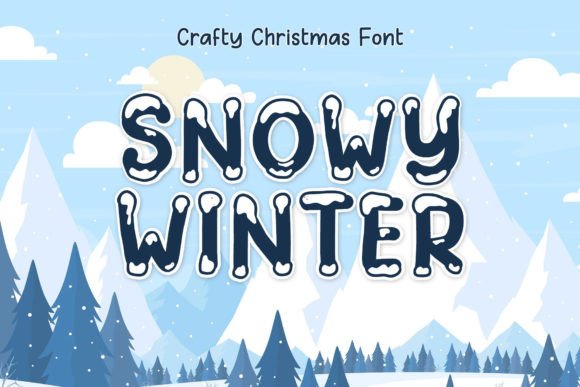
Introducing Snowy Winter Font, a crafty and snowy display font that will transport you to a winter wonderland! Created by the talented Letterafa Studio, this font is not only visually stunning but also highly versatile, making it the best font choice for modern app designs.
With its unique feature of each letter being covered in snow, Snowy Winter Font adds a touch of whimsy and magic to any project. Whether you're creating a children's activity, designing a Christmas or Thanksgiving-themed artwork, or working on a school project, this font will captivate your audience and bring your ideas to life.
Imagine the joy and excitement on children's faces as they see their names written in Snowy Winter Font, resembling the frosty patterns on a winter morning. It truly evokes the spirit of the season and adds a playful touch to any design.
Not only is Snowy Winter Font visually captivating, but it also offers exceptional functionality. Its clean and legible characters ensure readability across various platforms and sizes, making it perfect for app interfaces. Your users will be drawn to the elegant yet playful nature of this font, enhancing their overall experience with your app.
Whether you're designing a poster, logo, packaging, or any other creative project, Snowy Winter Font will elevate your design and make it stand out from the crowd. Its versatility allows you to use it in a variety of contexts, adding a touch of charm and personality to your brand.